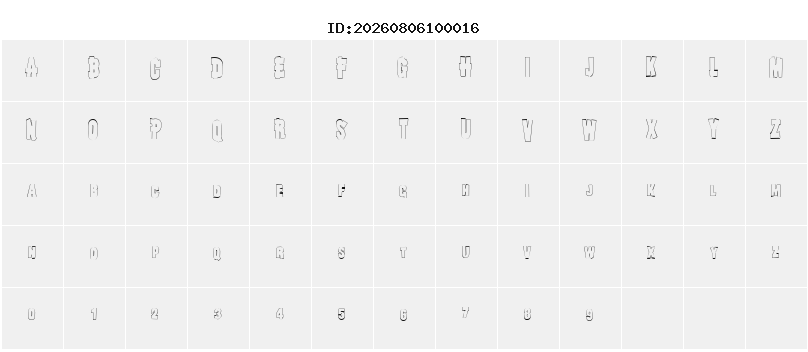
About OrganDonorSkin.ttf
OrganDonorSkin.ttf is a modern, elegant sans-serif font designed for ultimate readability and visual harmony. Perfect for branding, headlines, web design, and print materials.